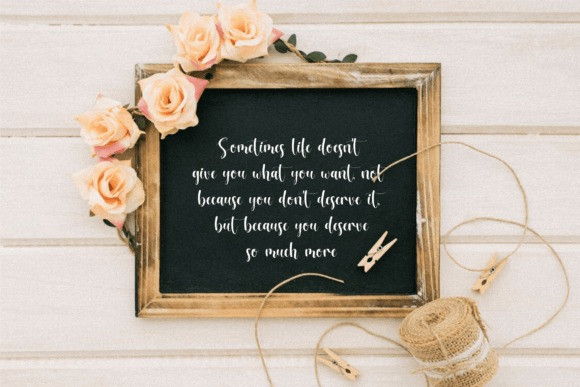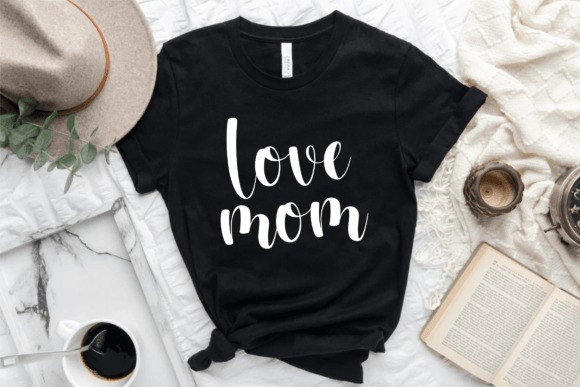
Butter Pineapple Script Font
Butter Pineapple a display font. This font
will looks awesome and amazing in many way to your latest project.
Butter Pineapple is perfect for many different
project such as logos & branding, invitation, stationery, wedding
designs, social media posts, advertisements, product packaging, product
designs, label, photography, watermark, special events or anything.